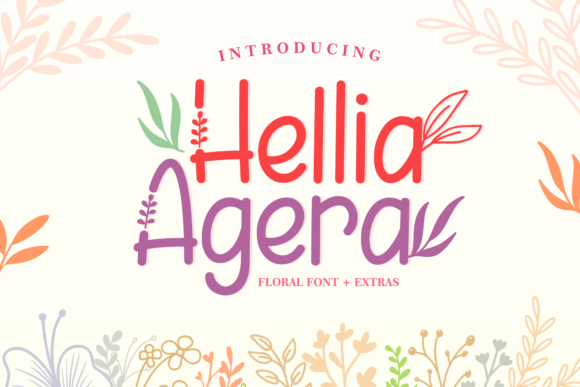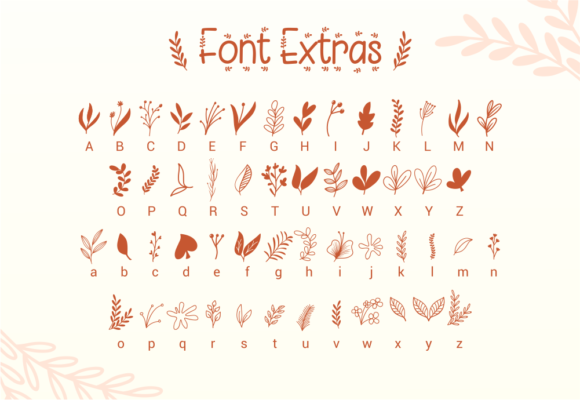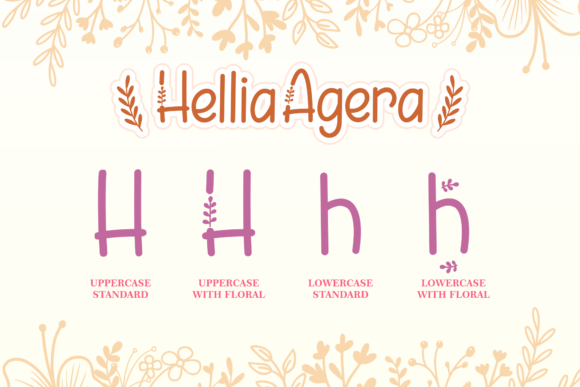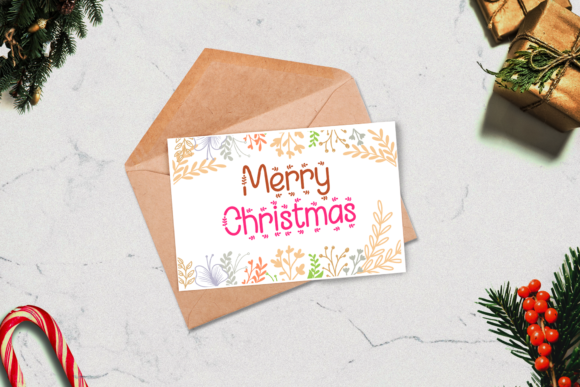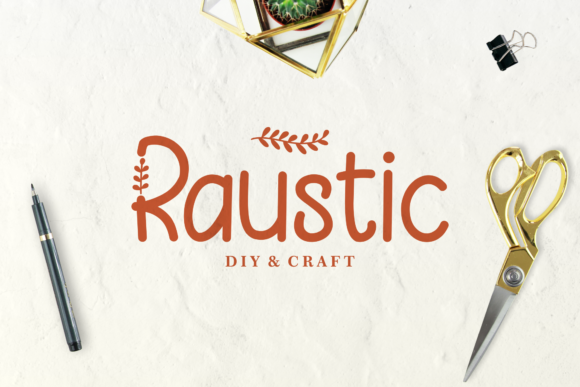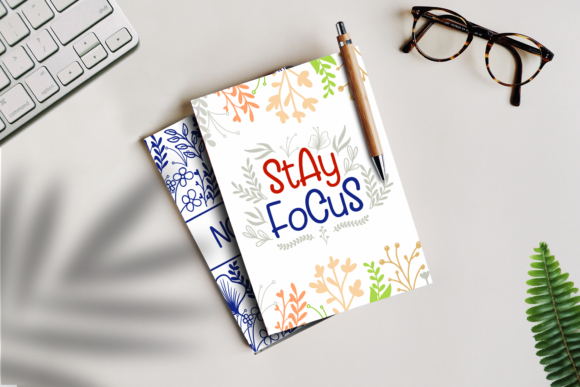
Hellia Agera by Holydie Studio
Floral-themed display font featuring ornate alternates, ideal for creating elegant and eye-catching designs in invitations and graphic arts projects.